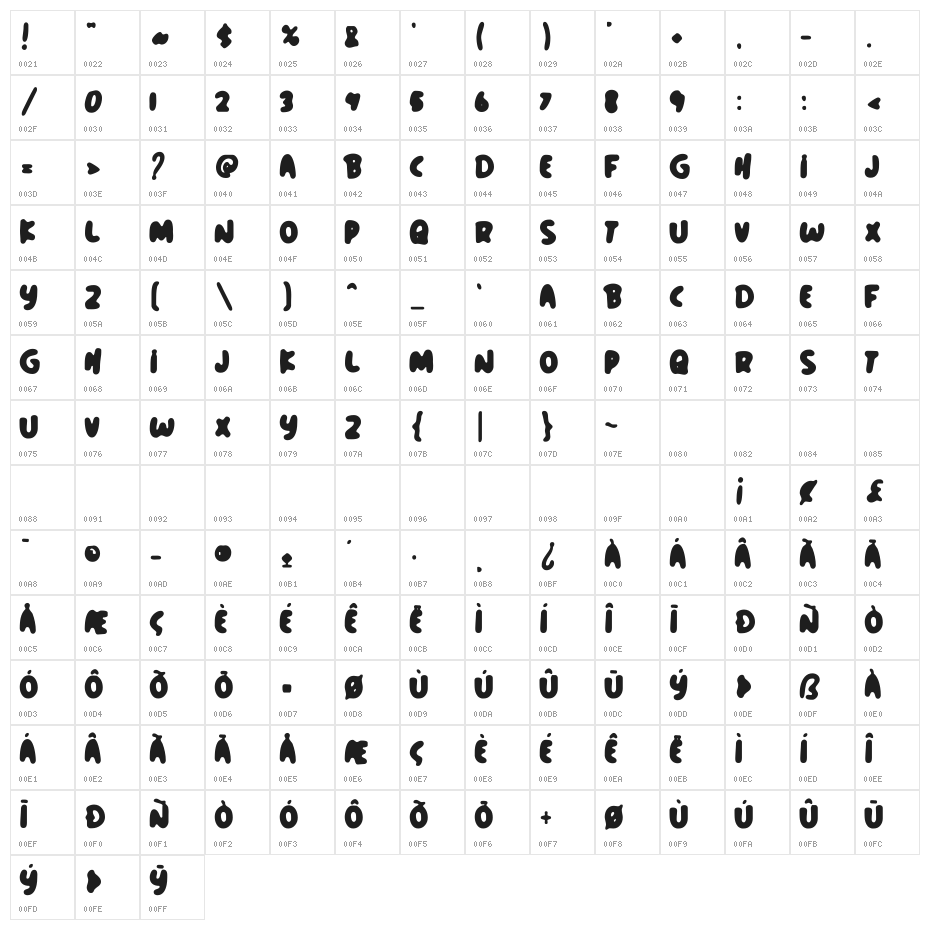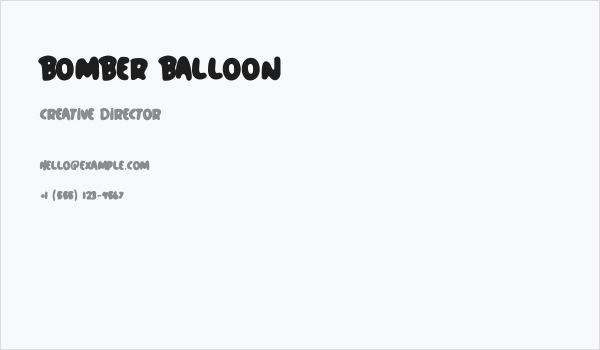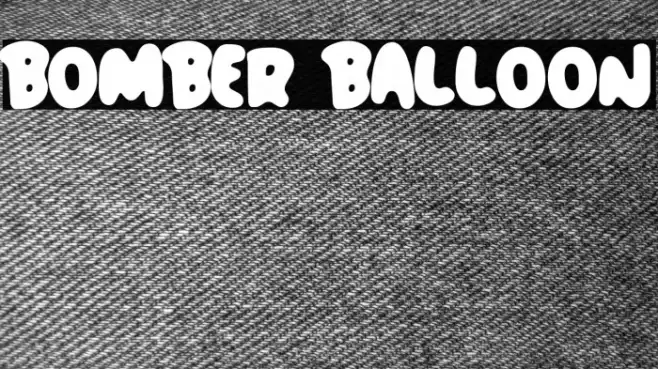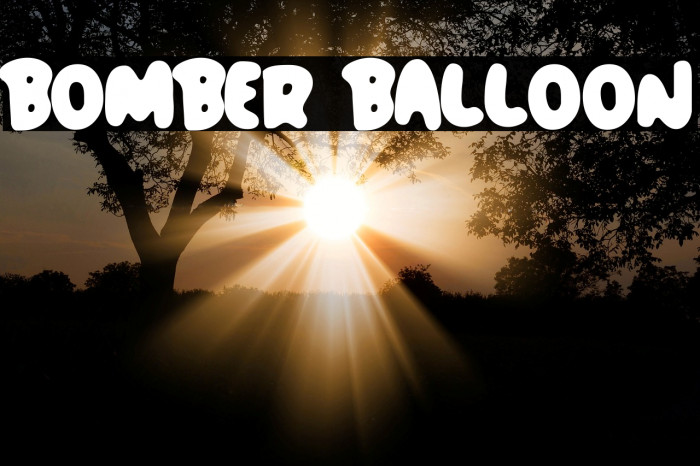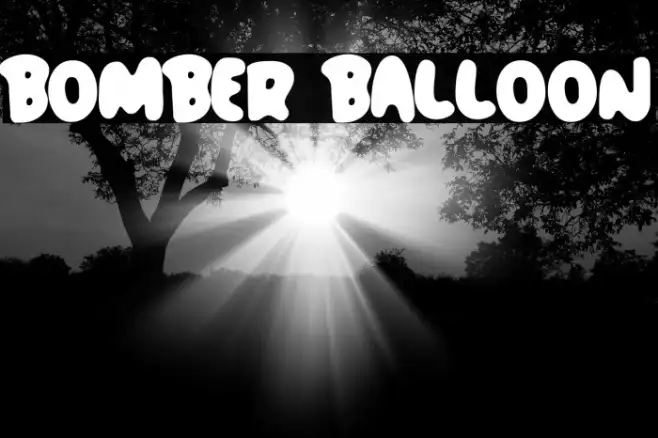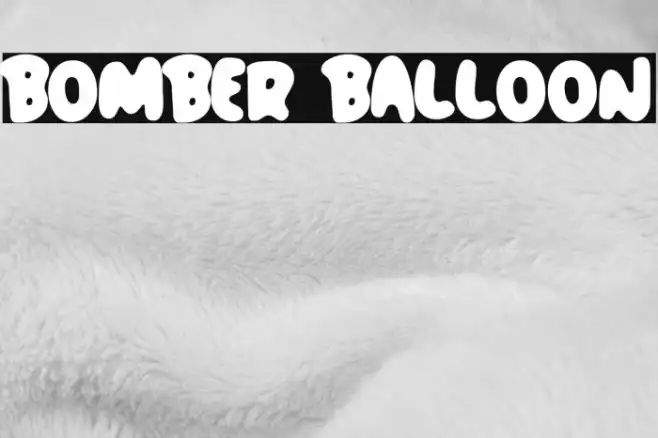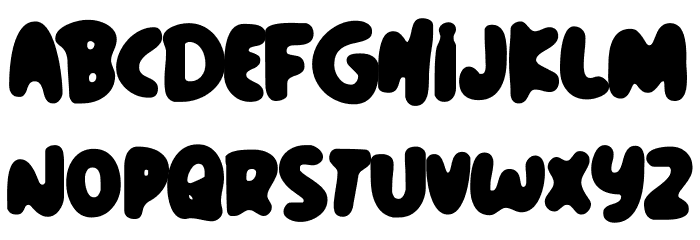
Bomber Balloon Font
Bomber Balloon Description
This playful and bold font features rounded, balloon-like characters that convey a sense of fun and whimsy. Each letter is thick and bubbly, with a consistent stroke width that gives it a cohesive appearance. The characters are well-spaced, ensuring readability while maintaining a playful aesthetic. The font includes both uppercase and lowercase letters, numbers, and a variety of special characters, making it versatile for different uses. Its unique style is reminiscent of inflated balloons, making it ideal for projects that require a lighthearted and cheerful touch.
| Proposed Projects | Ideal for children's books, party invitations, playful branding, and any project needing a whimsical touch. |